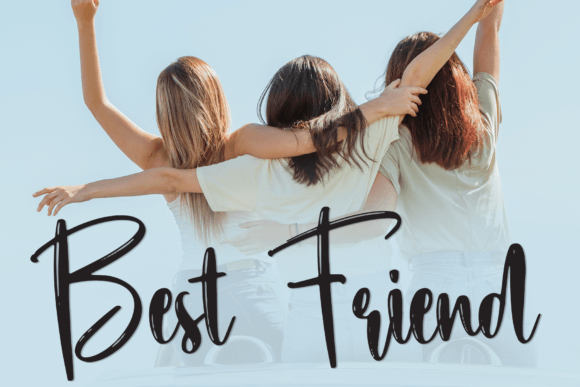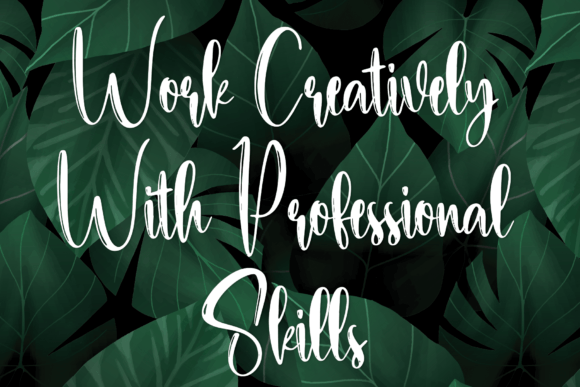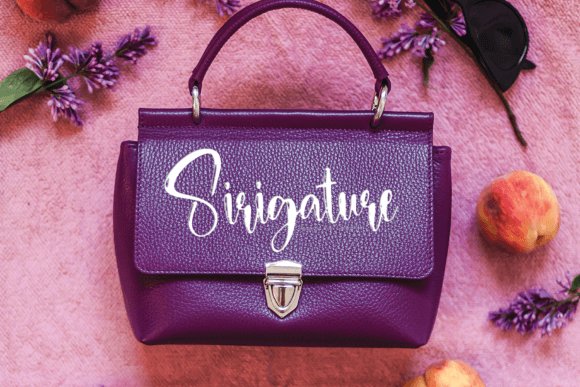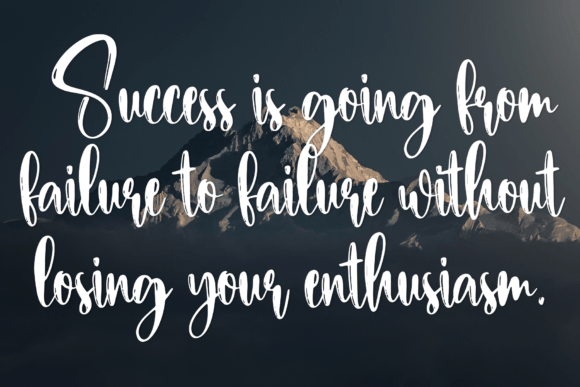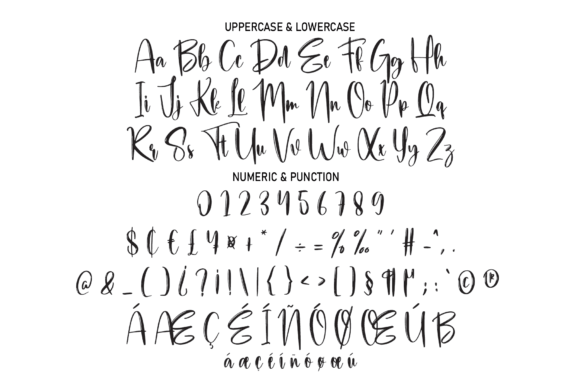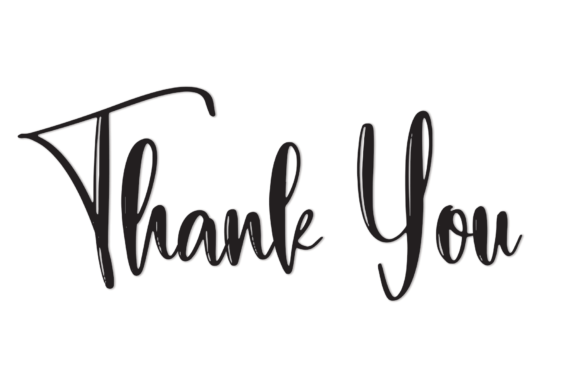
Discover the Elegance of Guide Font: A Timeless Choice for Your Designs
Are you on the hunt for a font that exudes elegance and sophistication? Look no further than Guide Font, a beautiful, flowing handwritten font that is sure to capture your heart. With its incredibly distinct and timeless style, Guide Font is the perfect choice for designers and crafters looking to add a touch of refinement to their projects.
What Makes Guide Font So Special?
Guide Font is a true standout in the world of typography. Its elegant touch and flowing script make it perfect for a wide range of applications, from wedding invitations and branding materials to packaging and digital designs. The font’s classic style ensures that it will never go out of fashion, making it a valuable addition to any designer’s toolkit.
Key Features of Guide Font
- Elegant and Refined: Guide Font boasts an undeniably elegant and refined aesthetic, perfect for designs that demand a high level of sophistication.
- Flowing Handwritten Style: The font’s flowing handwritten style gives it a personal and approachable feel, making it ideal for projects where you want to connect with your audience.
- Timeless Appeal: Guide Font’s classic style ensures that it will remain a timeless choice for years to come, never going out of fashion or falling behind the latest trends.
- Versatile: Whether you’re working on a wedding invitation, a brand identity, or a digital project, Guide Font is versatile enough to adapt to any design need.
How to Use Guide Font in Your Projects
Integrating Guide Font into your designs is incredibly straightforward. Here are a few ideas to get you started:
- Wedding and Event Invitations: Add a touch of romance and sophistication to your wedding or event invitations with Guide Font.
- Branding and Logo Design: Use Guide Font to create elegant and memorable brand identities that stand out from the crowd.
- Packaging Design: Elevate your packaging designs with the refined and classic style of Guide Font.
- Digital Designs: From social media graphics to website headers, Guide Font can add a level of sophistication to any digital project.
Tips for Getting the Most Out of Guide Font
To truly make Guide Font shine in your designs, consider the following tips:
- Pair with Contrasting Fonts: Combine Guide Font with a more modern or geometric font to create visual interest and contrast.
- Experiment with Colors: While Guide Font looks stunning in classic black and white, don’t be afraid to experiment with colors that match your brand or design theme.
- Play with Sizes: Use Guide Font in various sizes to create hierarchy and emphasis in your designs.
Guide Font is a beautiful, elegant, and timeless choice for designers and crafters looking to elevate their projects. Its flowing handwritten style and classic appeal make it versatile enough for a wide range of applications. Whether you’re creating wedding invitations, branding materials, or digital designs, Guide Font is sure to bring a touch of sophistication and elegance to your work. So why wait? Fall in love with Guide Font and start creating spectacular designs today!